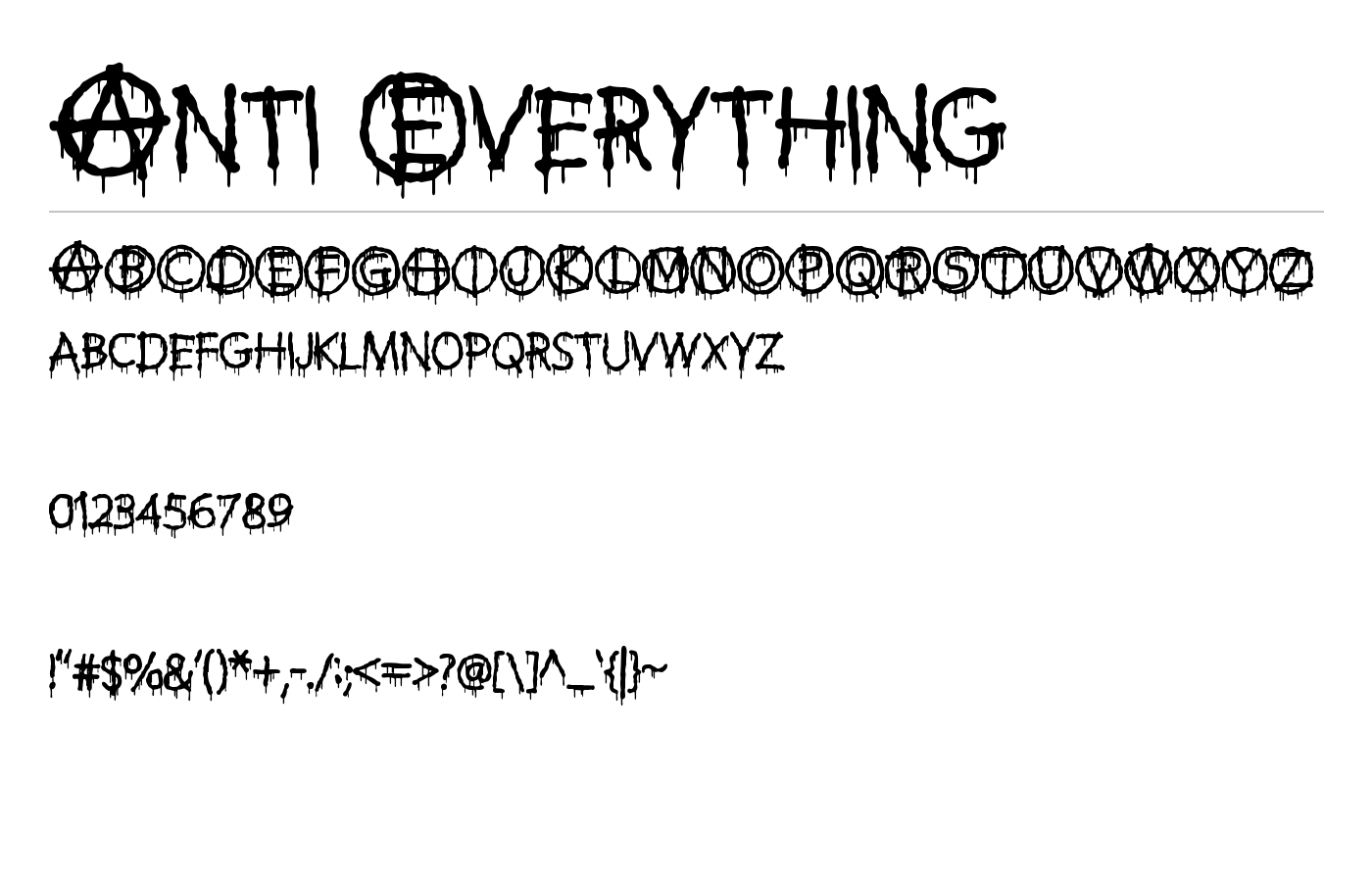
Anti Everything Font is a bold, distressed sans serif typeface with a rebellious, grungy vibe created by its dripping, irregular strokes and anarchist symbol-inspired characters. Its edgy, chaotic style is perfect for punk, underground, or alternative branding, posters, and headlines where a strong, countercultural statement is desired. This font works best in display settings, instantly grabbing attention with its raw and defiant personality.
Anti Everything Font